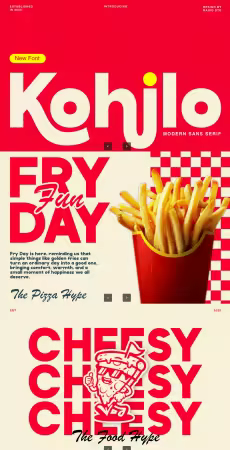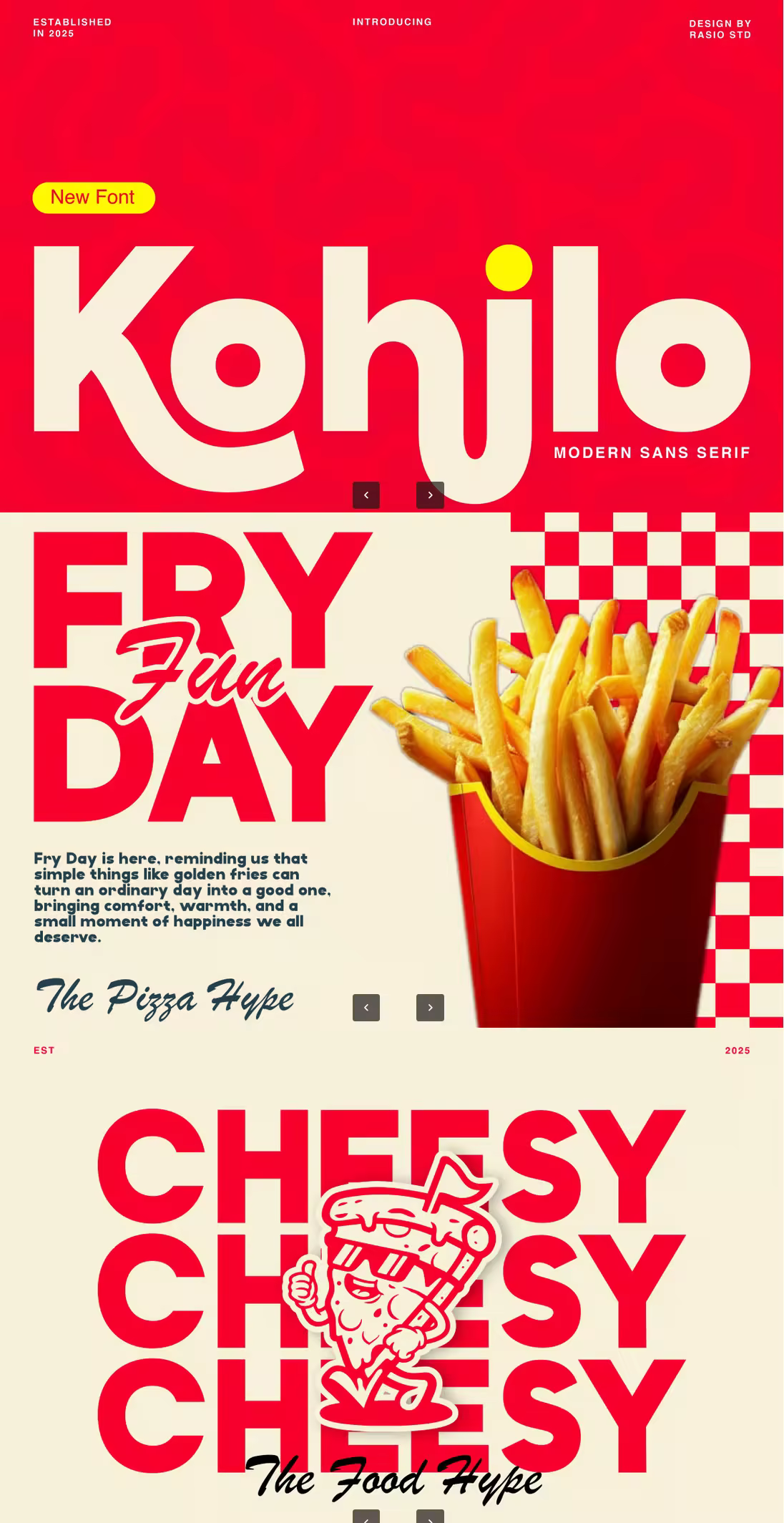
Kohilo is a modern sans serif font with bold geometric shapes and playful curves, perfect for branding, headlines, and display purposes. Designed by Rasio Std and released in 2025, this versatile typeface includes uppercase and lowercase characters, offering a clean, retro-inspired look that blends professionalism with creativity. The soft-rounded edges and dynamic forms make Kohilo ideal for visual identity projects, promotional materials, food packaging, or stylish advertising campaigns. Compatible with most design software, Kohilo ensures readability without sacrificing uniqueness.
Relevance and Use Cases is perfect for creative professionals, entrepreneurs, and designers seeking a bold yet clean font to elevate their visual communication. Its modern sans serif style makes it ideal for branding identities, food packaging, startup promotions, and merchandise. Whether you're designing a trendy restaurant logo, vibrant social media campaign, or a youthful editorial spread, Kohilo delivers a fresh, professional look that adapts across various industries and themes.
Uppercase & Lowercase
Numeral & Punctuations
Multilingual Support
Ligatures & Alternate